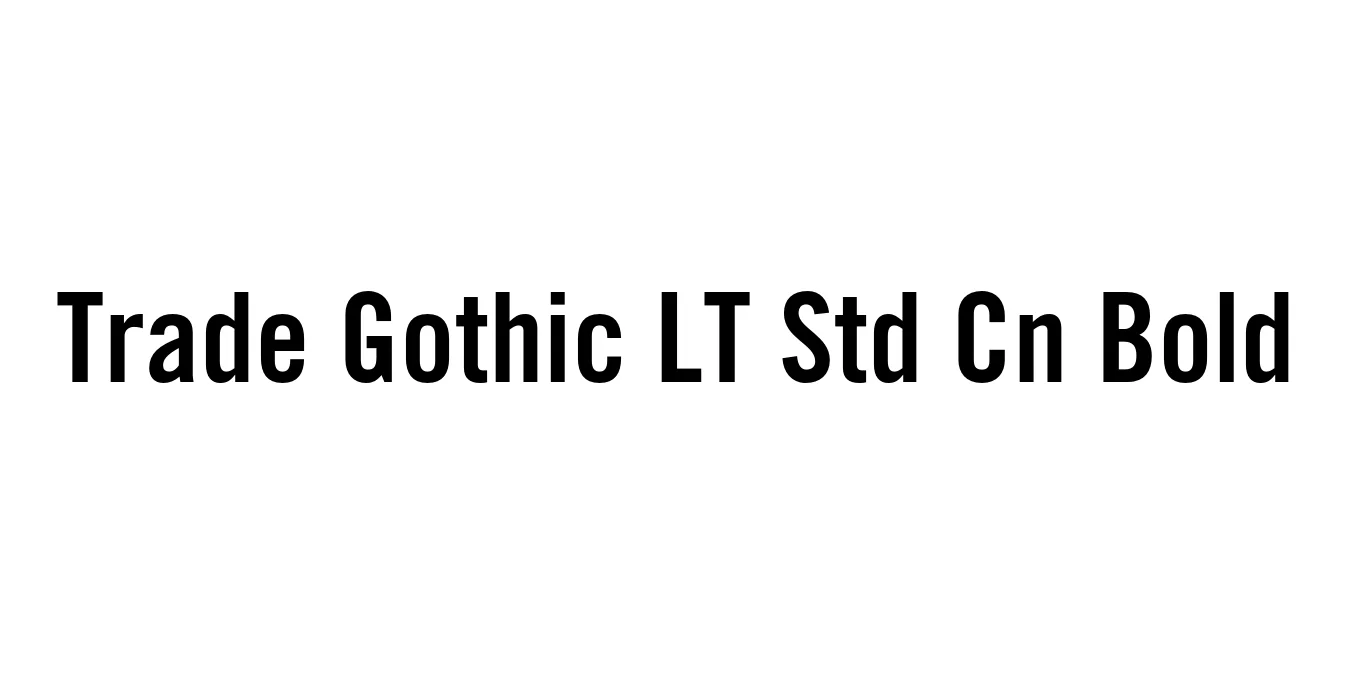
Trade Gothic LT Std Cn Bold
Designed by Jackson Burke
Trade Gothic was originally designed by Jackson Burke between 1948 and 1960 during his tenure as the director of type development for Linotype. Unlike many other gothic typefaces of the era that followed a strict, unified family structure, Trade Gothic was developed over many years, resulting in a diverse and somewhat irregular collection of styles that provide a unique, organic character compared to more systematic designs like Helvetica.
The Trade Gothic LT Std Cn Bold variant is a condensed heavyweight that has become a favorite in the world of editorial and advertising design. Its narrow proportions and authoritative weight allow for high-impact messaging in tight spaces, making it an essential tool for creating strong vertical hierarchies and professional, industrial-strength typography.
Trade Gothic LT Std Cn Bold Best Uses
Perfect for powerful newspaper and magazine titles that need to save horizontal space.
Highly effective for professional logos and corporate identity systems.
Excellent for posters and billboards requiring high legibility and impact.
Ideal for navigation menus and mobile-first interfaces where space is at a premium.